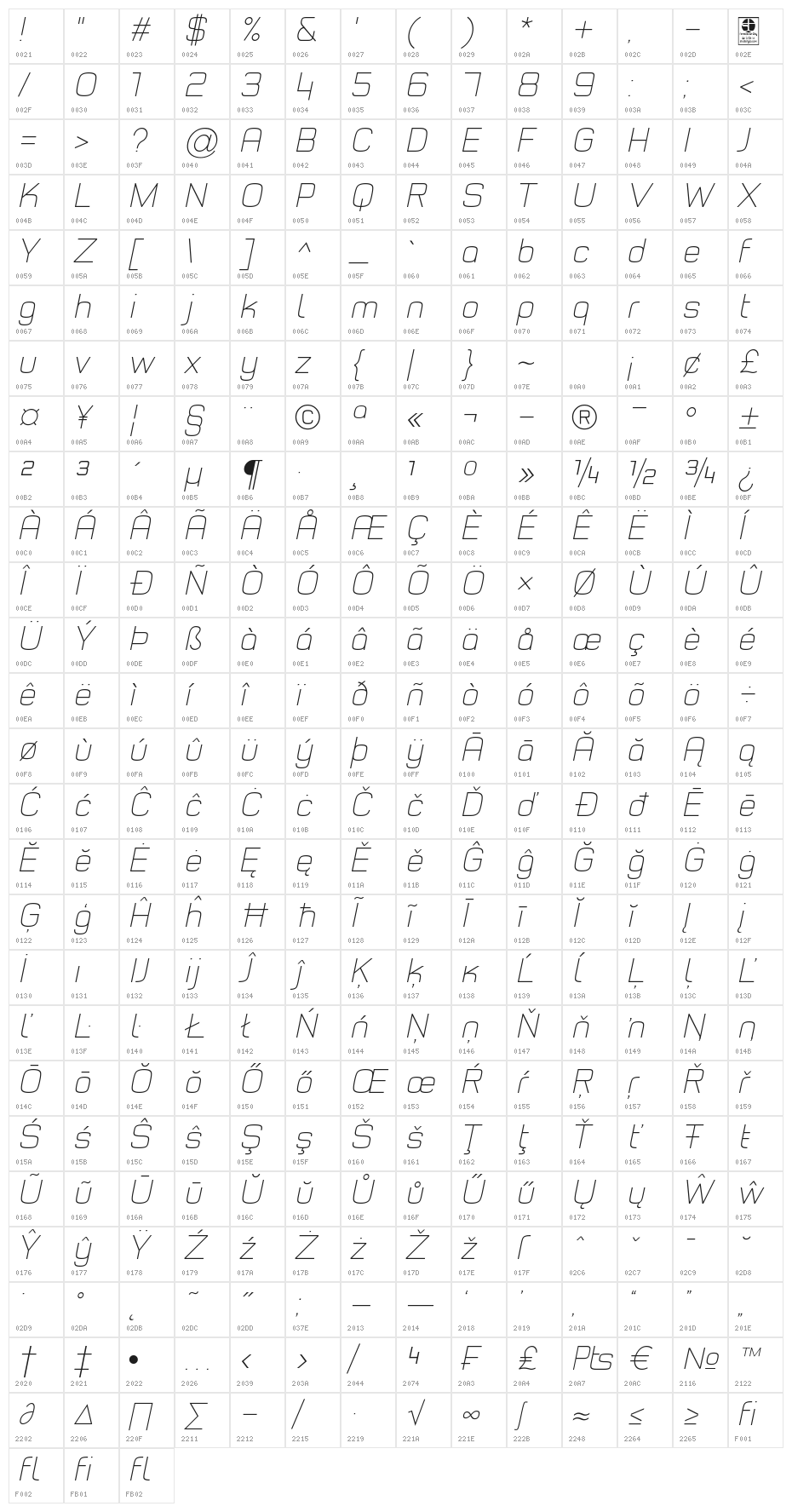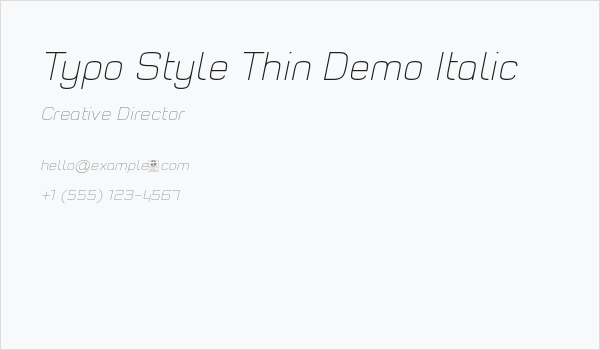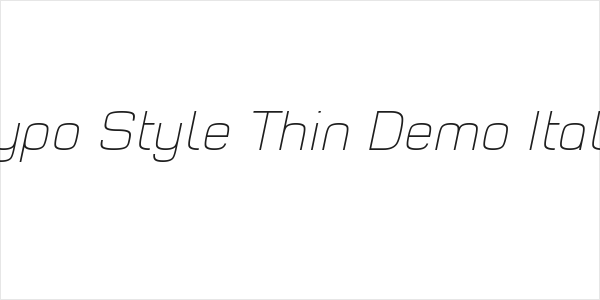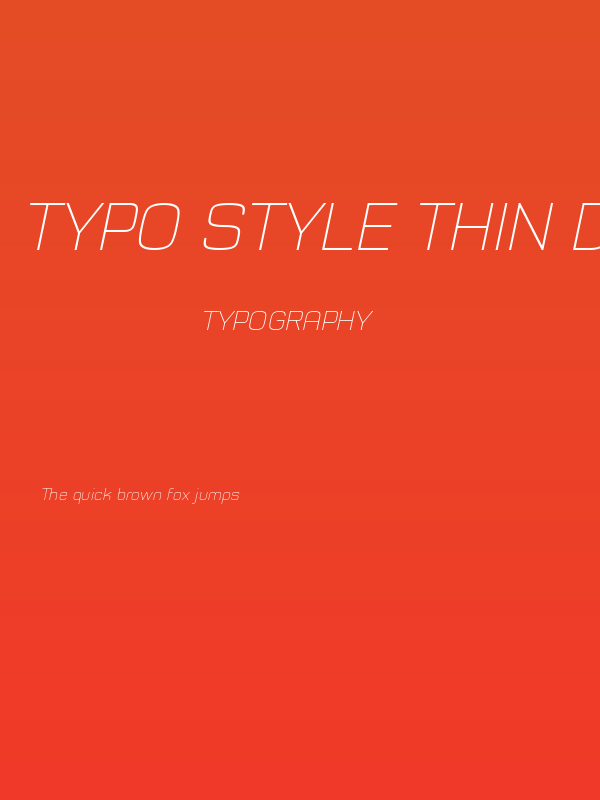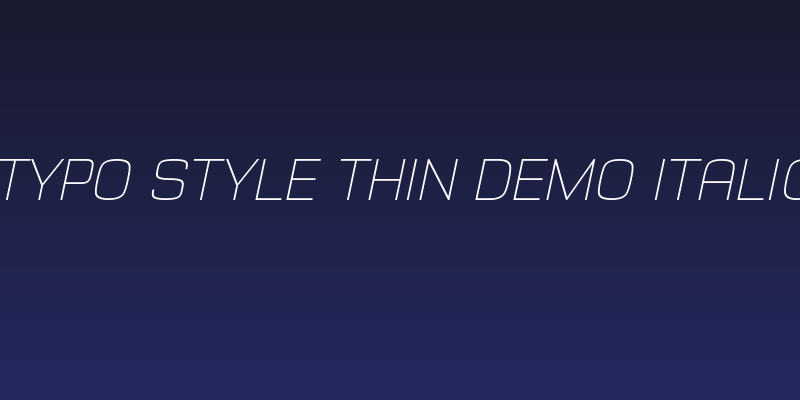
Typo Style Thin Demo Italic Font
Typo Style Thin Demo Italic Description
This font features a sleek, modern design with a thin, elegant stroke. The characters are slightly slanted, giving it an italic appearance that adds a sense of motion and dynamism. The uppercase and lowercase letters are consistent in style, with clean lines and minimalistic forms. The numbers and special characters maintain the same aesthetic, ensuring uniformity across all elements. This font's thin strokes and open spacing make it ideal for projects that require a contemporary and sophisticated look.
| Proposed Projects | Ideal for branding, fashion magazines, modern websites, and minimalist design projects. |